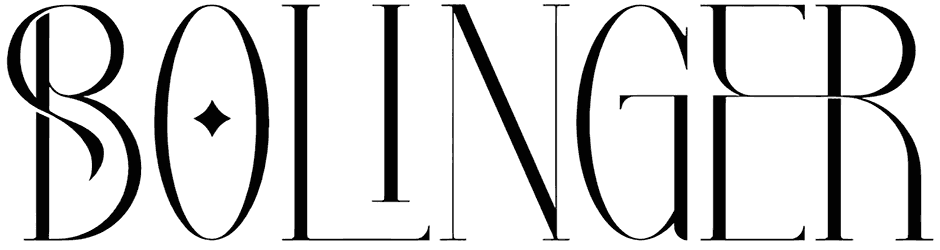
Bolinger Font
Look no further than Bolinger if you need a basic ligature serif font for beautiful designs. This art deco lettering is perfect for both print and digital use, and its two sets of uppercase letters make it ideal for everything from album covers and titles to greeting cards and messages.